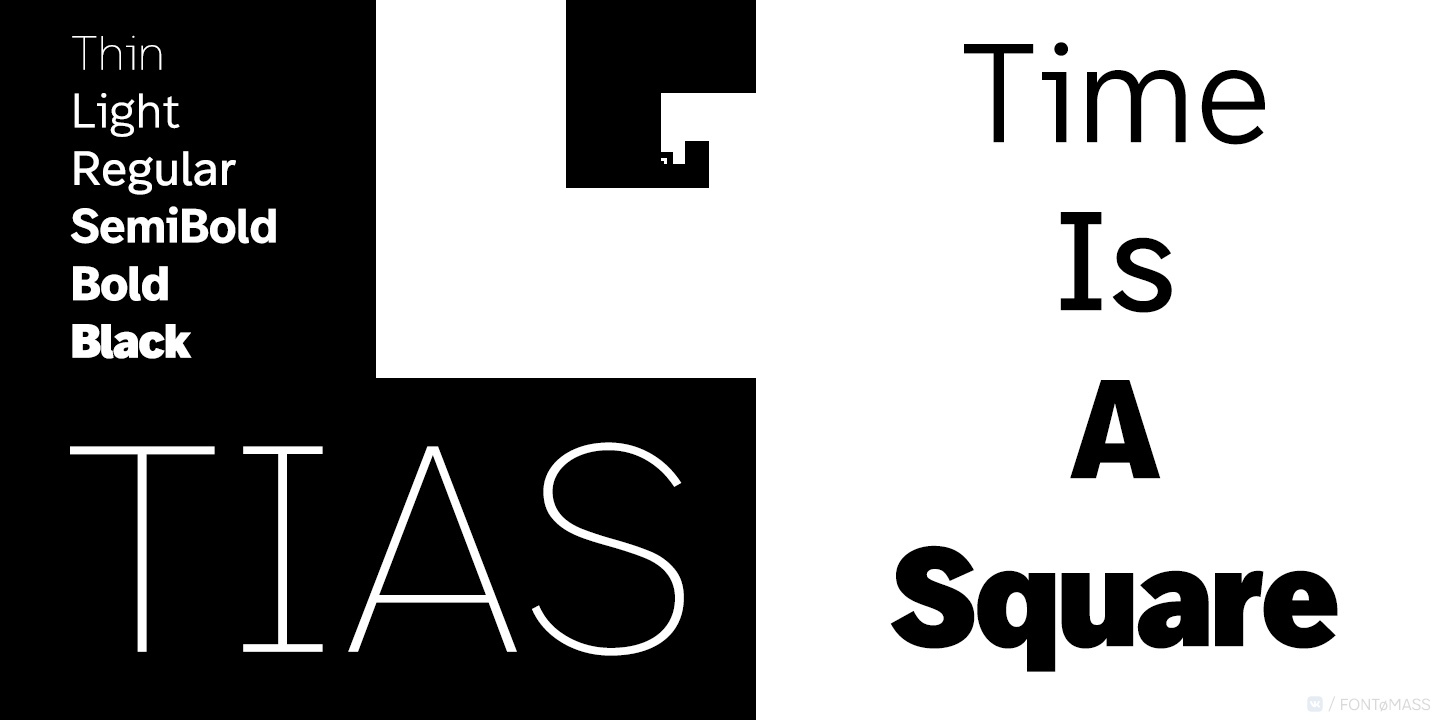
TIAS Font
TIAS Font is perfect for tech industry branding, software company logos, digital startup identity, innovation lab signage, artificial intelligence marketing, cybersecurity communications, technology conference graphics, and cutting-edge product presentations.
What makes TIAS Font exciting is its algorithmic precision that embodies the systematic logic and computational intelligence of advanced technology systems. The font features geometric letterforms with mathematical proportions and digital character that evoke code structures, data patterns, and the elegant efficiency of optimized algorithms. Its distinctive tech-inspired styling and systematic appeal communicate innovation, analytical thinking, and technological expertise, making every message feel processed by advanced systems and optimized for maximum digital performance.
The TIAS Font family includes regular weight with uppercase and lowercase letters, numerals, punctuation marks, and comprehensive technical symbols. Premium versions often feature multiple weights and digital alternates that enhance the technological, systematic aesthetic perfect for tech industry applications.
This advanced technological typeface brings instant credibility and digital authority to any innovation-focused project. TIAS Font Free Download delivers exceptional results for technology companies and digital organizations seeking to communicate computational excellence, systematic thinking, and cutting-edge capabilities to technical professionals and tech-savvy audiences.
The systematic character of TIAS Font makes it particularly valuable for AI companies, software development firms, and technology research institutions. Its excellent readability across digital platforms ensures technical specifications and innovation messaging remain clear while maintaining the distinctive technological aesthetic that appeals to engineers, developers, and technology decision-makers.
Tech industry marketers appreciate how TIAS Font effortlessly conveys computational sophistication and digital expertise. The font's algorithmic proportions and systematic details create authoritative brand materials that establish trust with audiences seeking reliable technology solutions, advanced digital capabilities, and innovative computational approaches.
The versatile intelligence of this typeface extends to fintech platforms, automation companies, and digital transformation services where technological credibility drives competitive advantage. TIAS Font Free Download provides creative professionals with an essential tool for developing memorable, technology-driven designs that resonate with audiences who embrace digital innovation, computational thinking, and the systematic precision of advanced technology in today's algorithm-powered business environment.